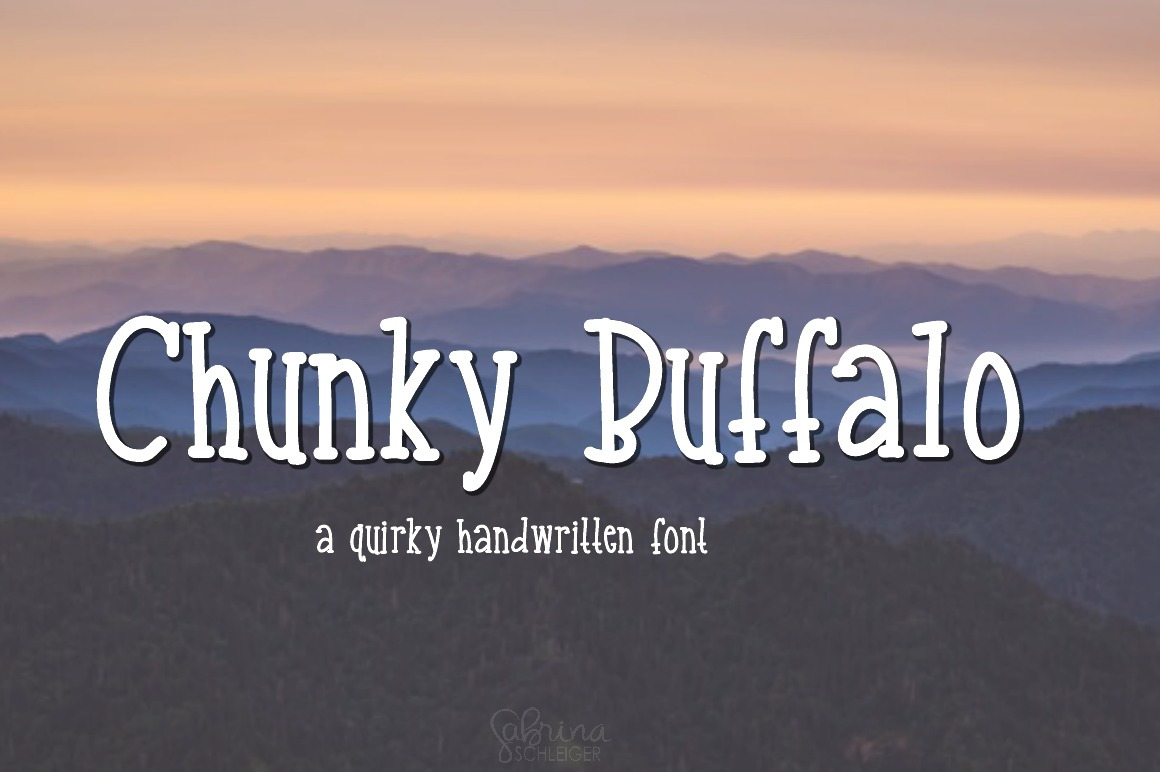
Chunky Buffalo- Handwritten Font
This font is great for your most youthful and quirky designs. The font file is in open type format and includes Latin extensions to support most European languages.